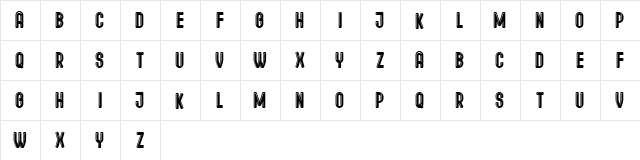
Traversal Book Regular
Design Context for Traversal Book Typeface
Traversal Book offers clean, dependable letterforms without strong stylistic allegiance, making it a practical choice for designers who need flexibility.
Pro Tip: Pair Traversal Book with a font of contrasting weight or personality to build a more expressive typographic hierarchy.